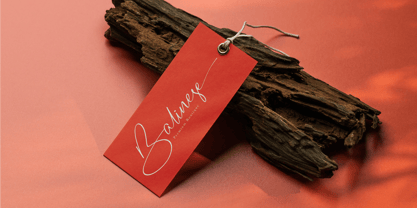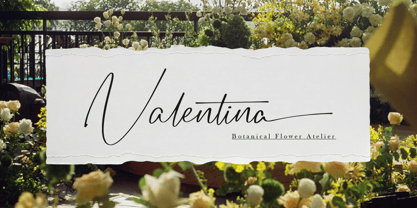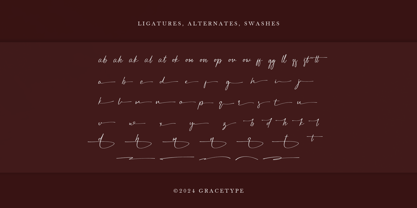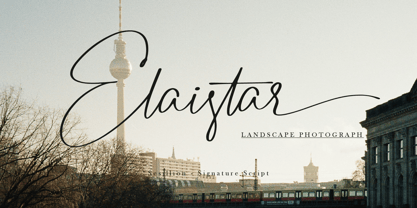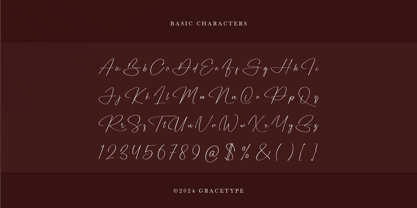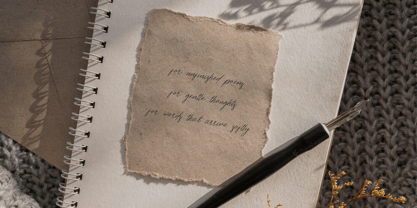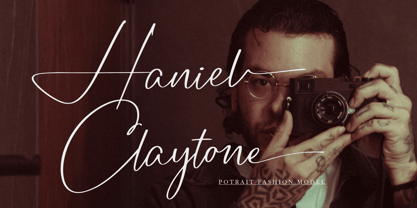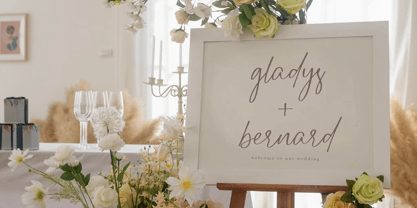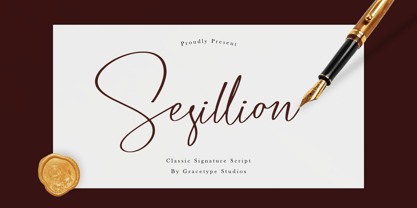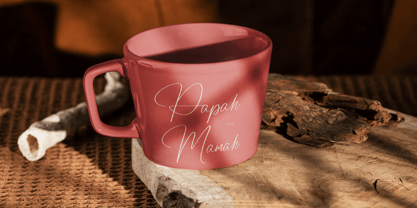
Sesillion
Sesillion | Classic Signature Script from Gracetypestudio, suitable for any projects such as: logos, branding projects, homeware designs, product packaging, mugs, quotes, posters, shopping bags, t-shirts, book covers, name card, invitation cards, greeting cards, label, photography, watermark, special events, and all your other lovely projects that need a Script taste.